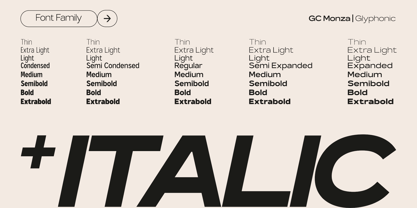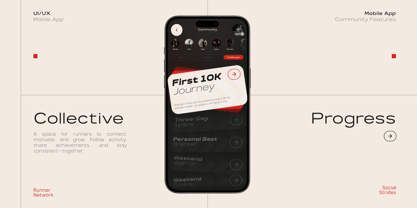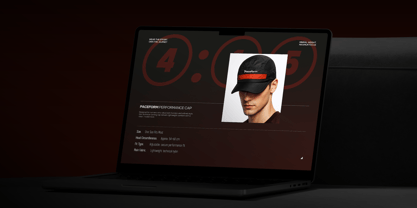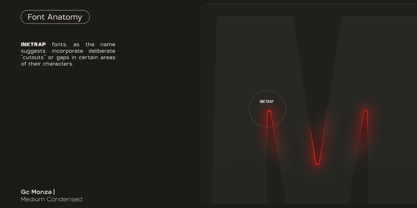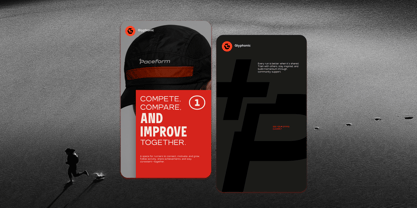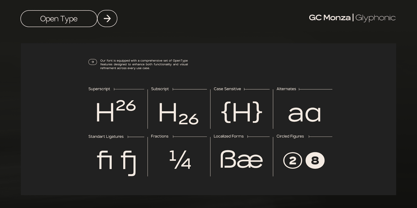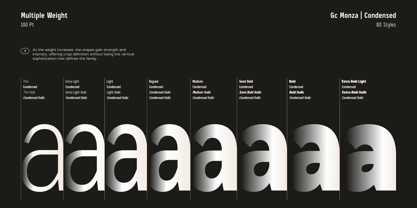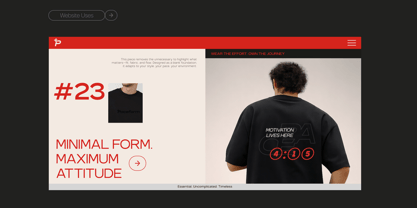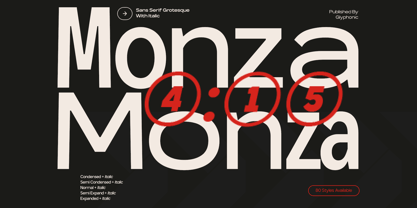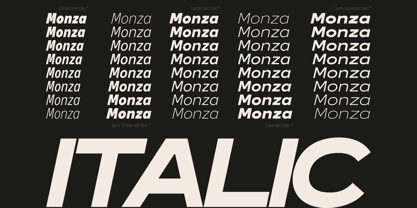
GC Monza Sans
The GC Monza Sans Font Family was designed by Muhammad Hafiizh Solana and published by Onyx Studio. GC Monza Sans contains 79 styles and family package options. More about this family
GC Monza – Complex Modern Sans is a contemporary sans serif typeface engineered for precision, versatility, and strong visual character. Designed with a refined structural system and modern detailing, it balances clarity with subtle complexity—creating a distinctive voice that feels both technical and expressive. With clean construction, confident strokes, and carefully calculated proportions, GC Monza delivers exceptional readability across branding, editorial design, corporate identity, packaging, UI systems, and digital interfaces. Its modern personality makes it ideal for projects that demand structure, sophistication, and dynamic flexibility. GC Monza is built as a complete and comprehensive type family, offering an extensive width system to support everything from compact layouts to bold, spacious compositions. Complete Family Includes: - Sans Regular + Italic - Semi Condensed + Italic - Semi Expanded + Italic - Multiple Weights Across All Widths This full-spectrum width system allows designers to create strong hierarchy, consistent branding, and highly adaptable typographic systems across print and digital environments. Features: - Uppercase & Lowercase - Numbers & Punctuation - Structured Modern Construction - Multilingual Support (170+ Languages) Experience total flexibility, structural precision, and modern clarity with GC Monza – Complex Modern Sans.